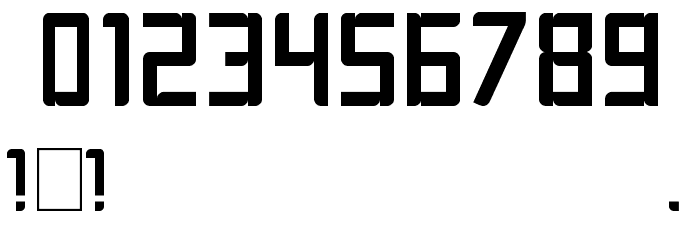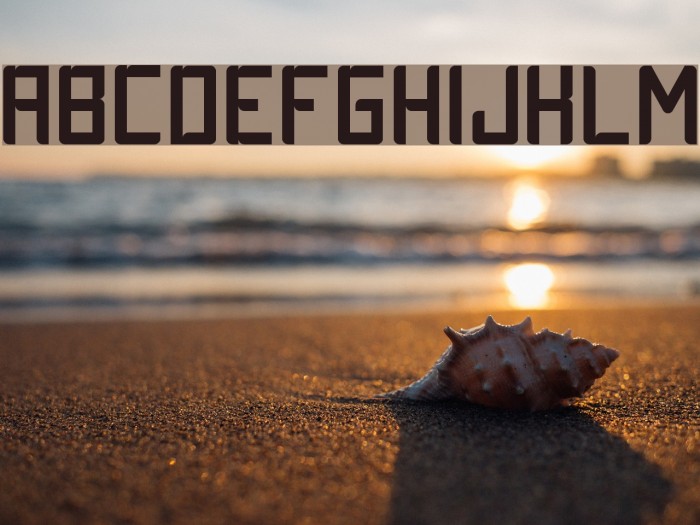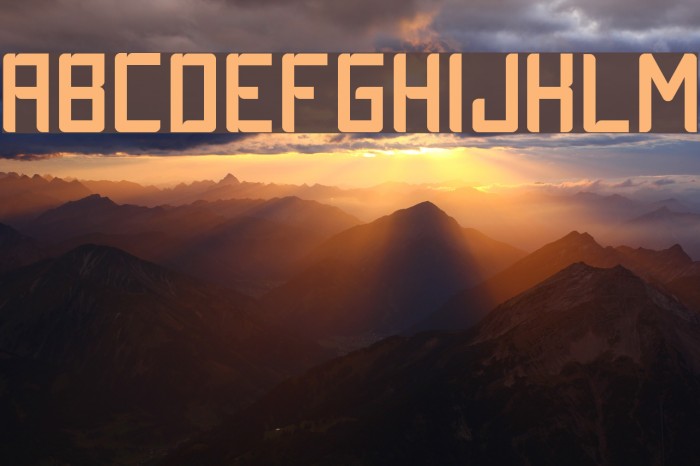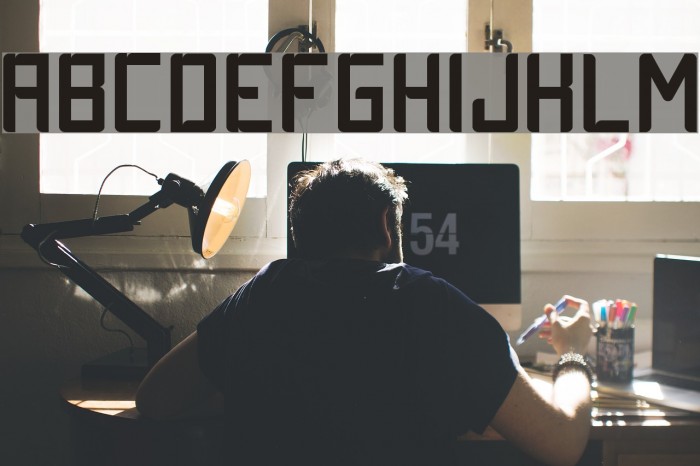
TESTY Font
This font features a bold, geometric design with a modern and futuristic aesthetic. The characters are constructed with straight lines and sharp angles, giving it a technical and digital feel. The uppercase letters are uniform in height and width, creating a cohesive and structured appearance. The numerals and special characters maintain the same geometric style, ensuring consistency across all glyphs. This font's design is clean and minimalistic, making it suitable for projects that require a contemporary and tech-savvy look.
A bold, geometric font with a modern, digital aesthetic.
- Proposed Projects: Ideal for technology branding, digital interfaces, video game titles, and futuristic posters.